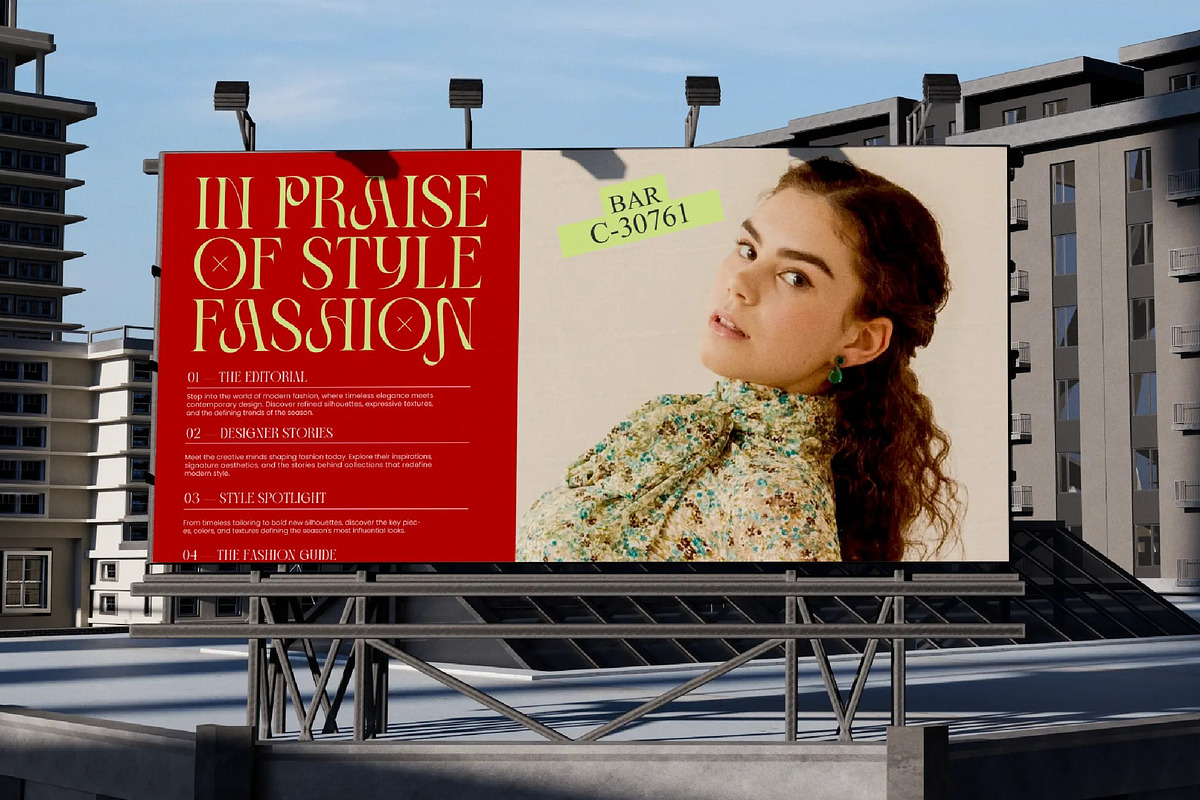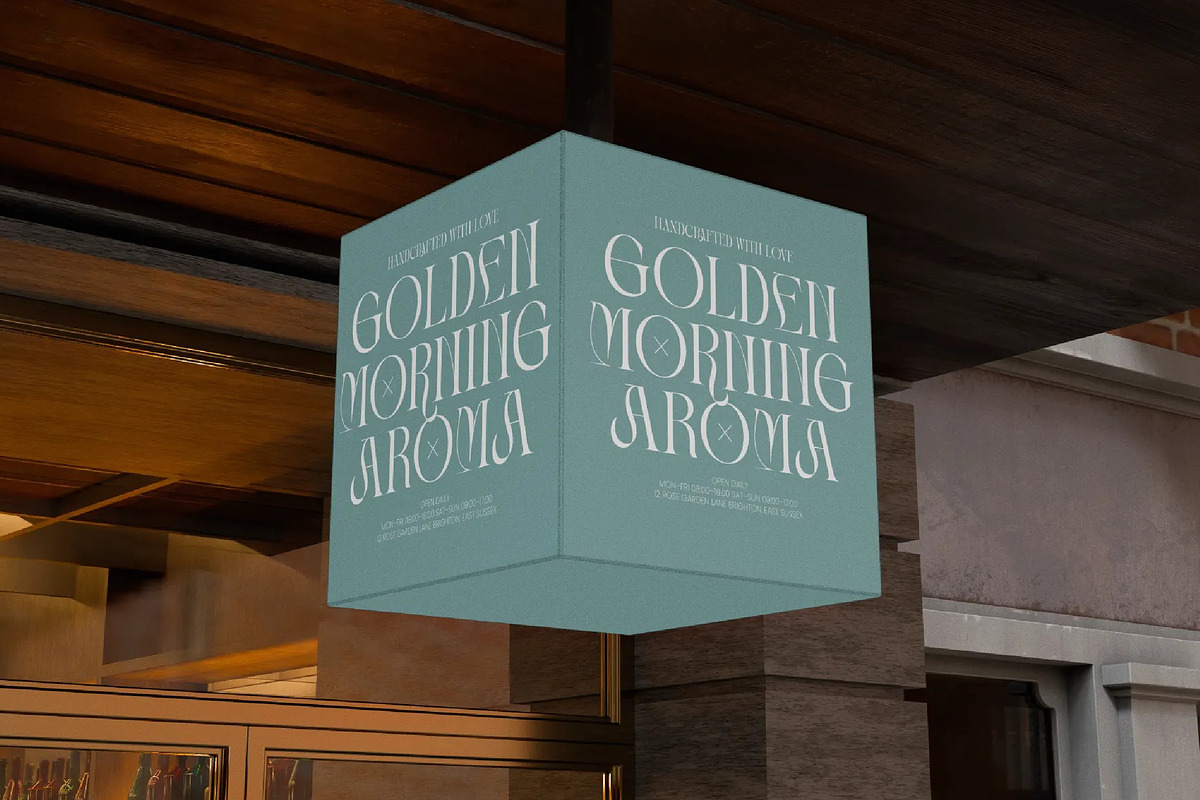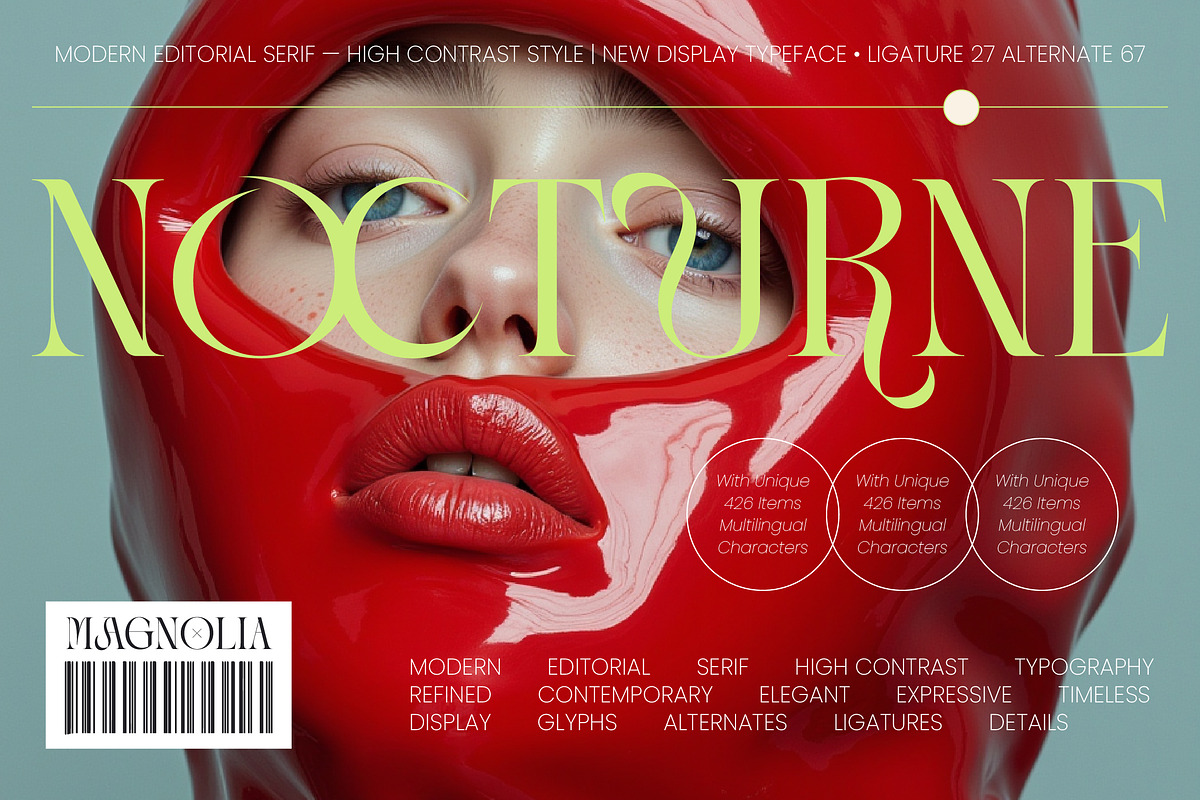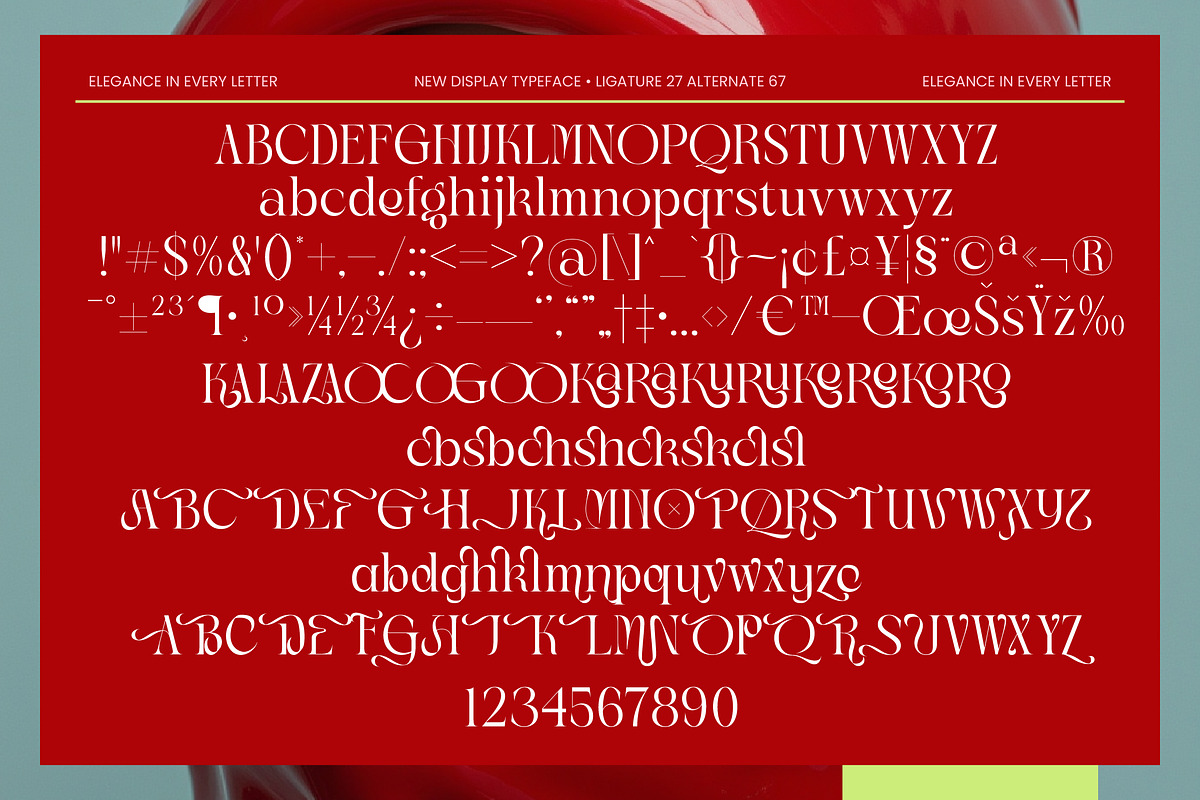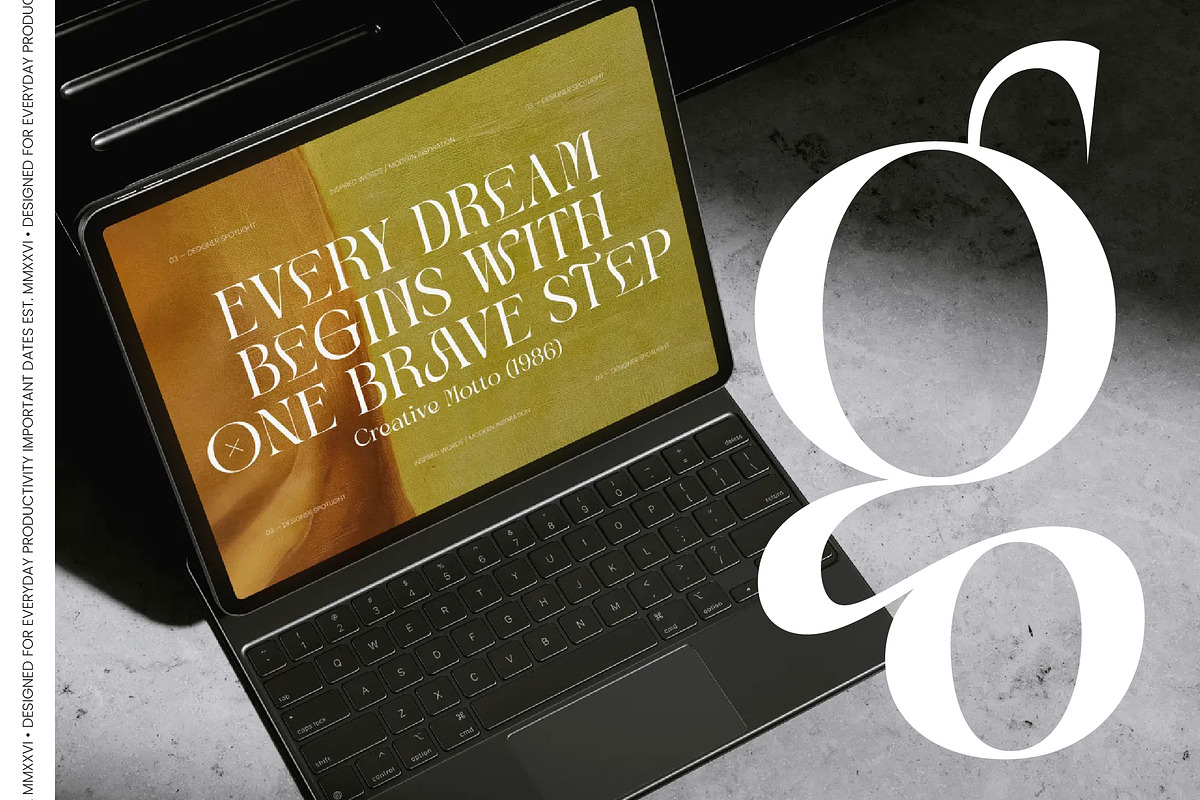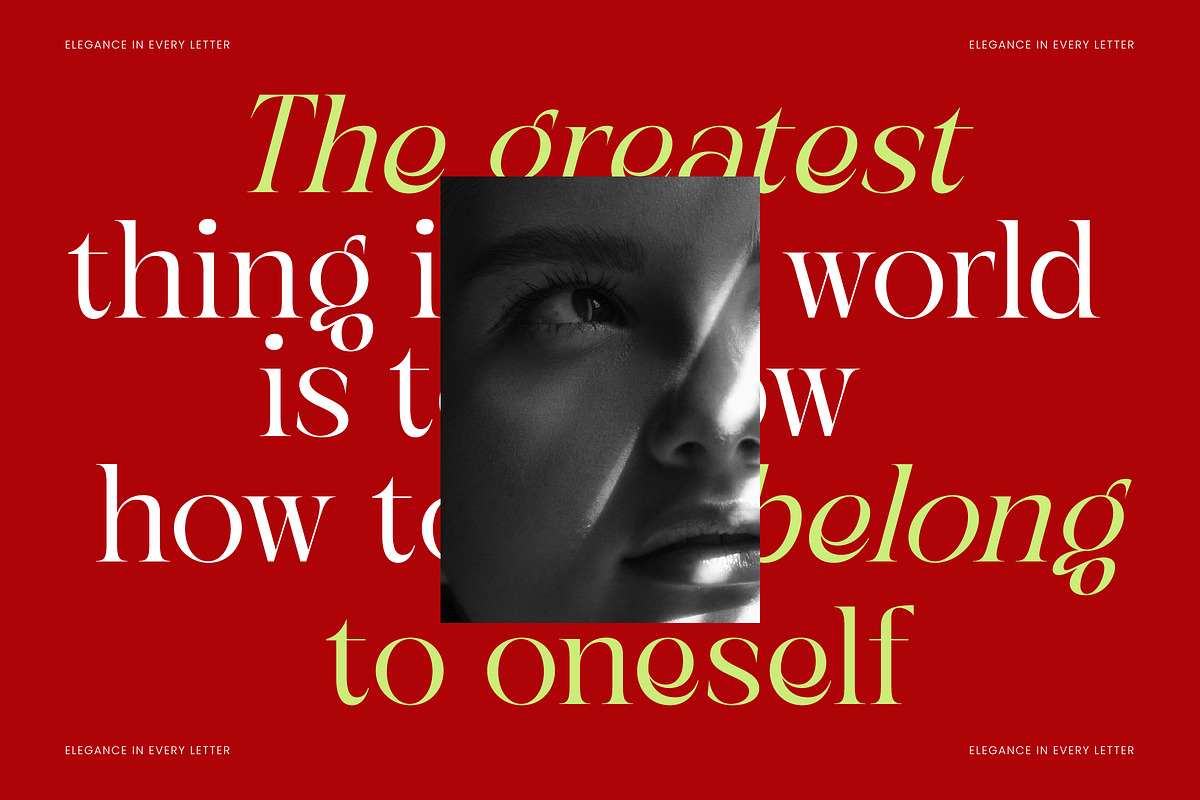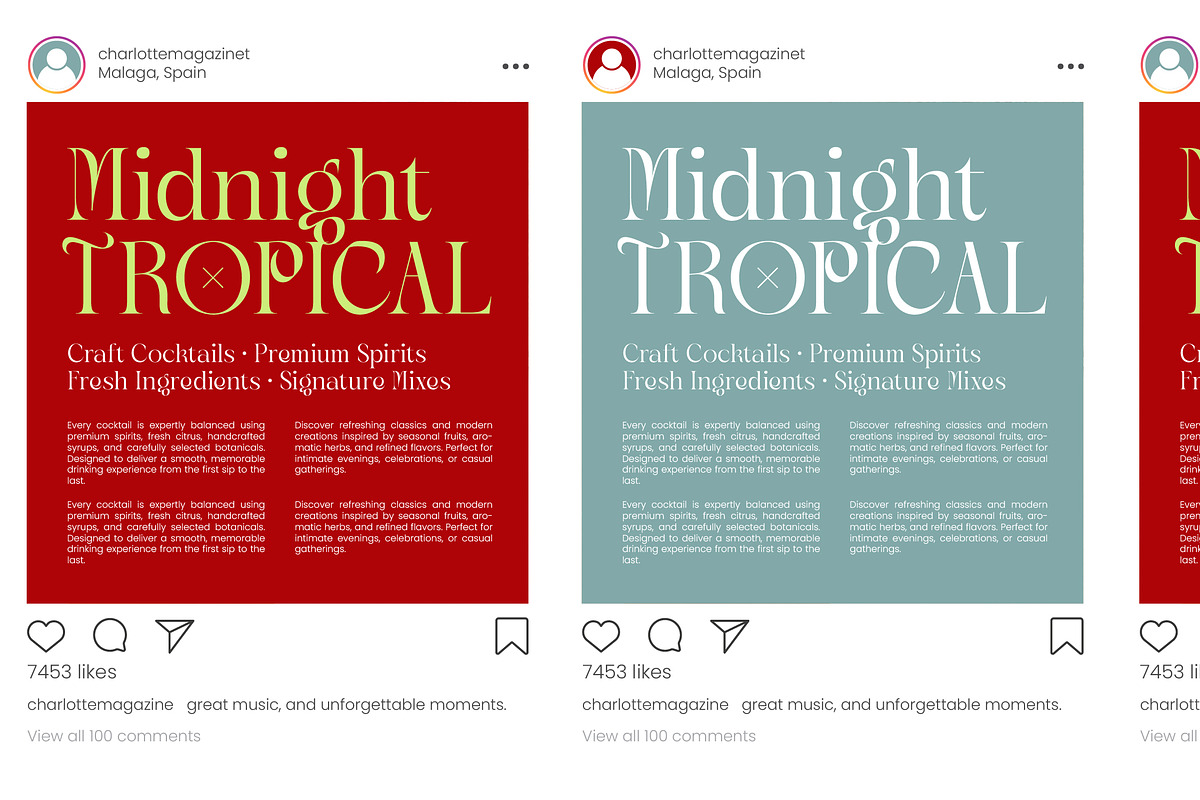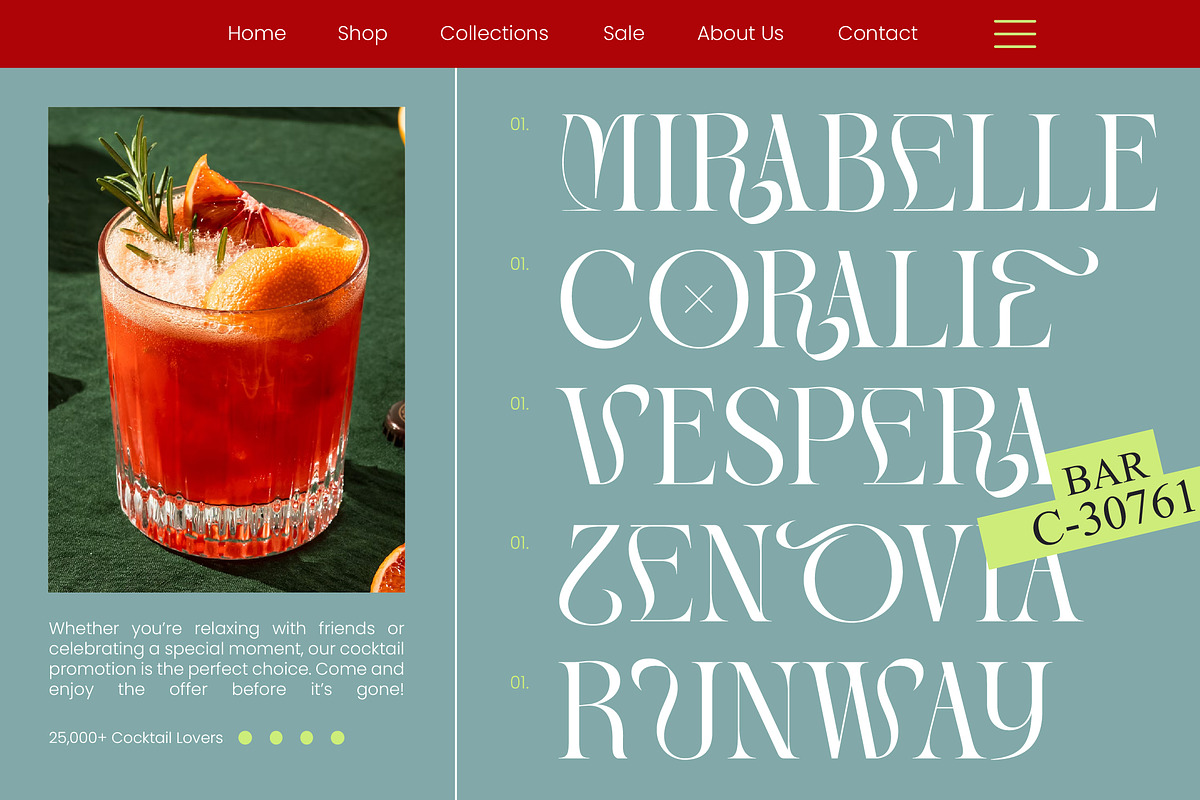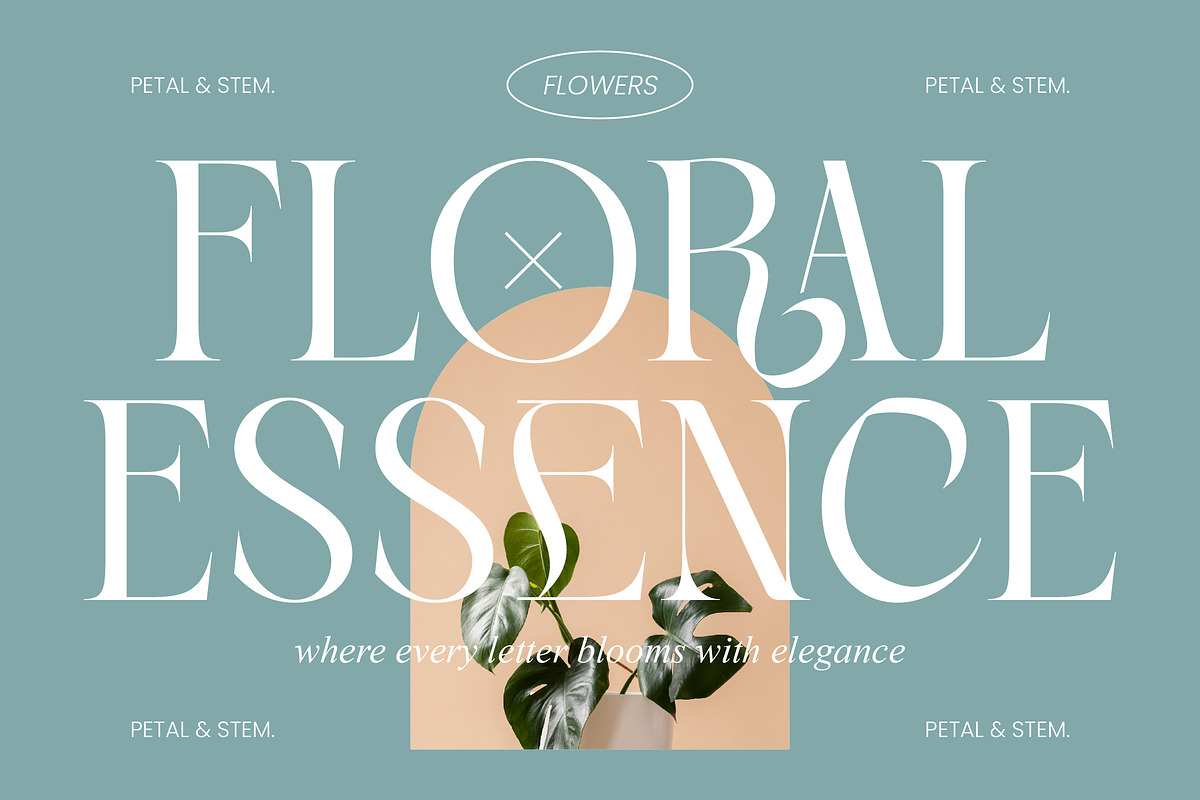
Magnolia Nocturne Editorial Serif
Magnolia Nocturne - Modern Editorial Serif , Magnolia Nocturne is a masterclass in modern sophistication, blending razor-sharp contrast with fluid, avant-garde elegance. It is designed to command attention on any page, transforming standard layouts into high-end editorial statements.
Drawing inspiration from the nocturnal beauty of high-fashion runways and the sleek aesthetic of luxury glossies, this typeface captures a spirit of mystery and refinement. Every curve and stroke reflects a balance between classical structure and contemporary rebellion.
This modern serif display is engineered for maximum luxury typography appeal, offering a high-contrast serif look that feels both timeless and futuristic. As an editorial font, it provides a high-end branding impact that resonates with audiences seeking exclusivity and polished style.
Perfectly aligned with the current modern serif trend, this typeface meets the demand for editorial display fonts that break away from the mundane. It embraces character-driven typography to ensure your projects stand out in a saturated digital landscape.
Whether you are crafting a unique logo design or developing an entire branding identity, this font delivers versatile excellence across editorial layouts and luxury packaging. It is equally at home in high-end wedding stationery or avant-garde fashion campaigns.
The set is packed with creative possibilities, including a vast array of unique ligatures and stylistic alternates that allow for bespoke character combinations. With full multilingual support and a comprehensive range of international characters, it is a global tool for world-class design.